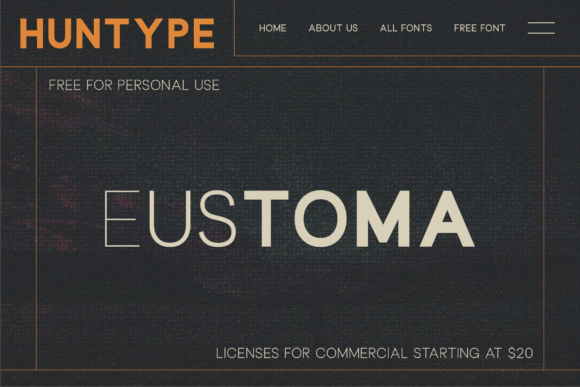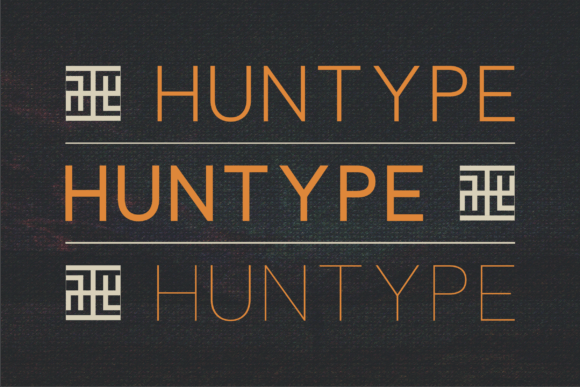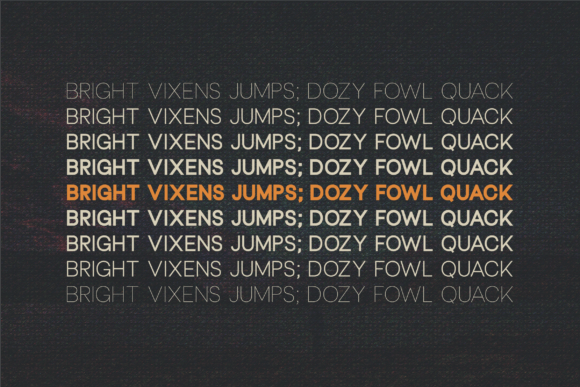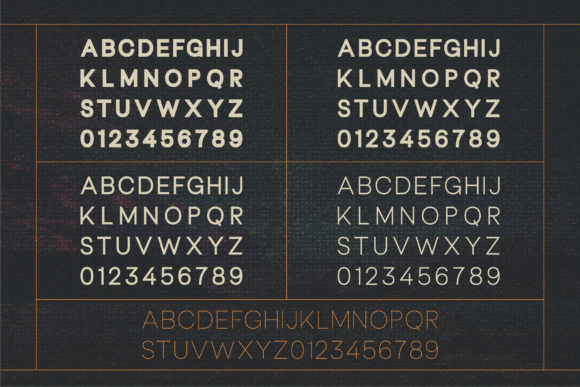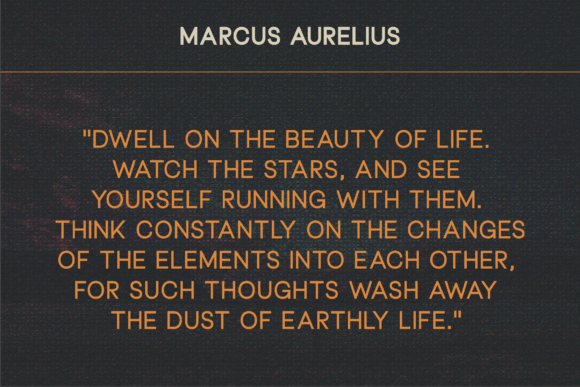
Eustoma Font: A Modern and Versatile Typeface for Designers and Crafters
In the world of typography, a font can make or break a design. With the numerous options available, finding the perfect blend of style, sophistication, and versatility can be a daunting task. However, for designers and crafters on the lookout for a modern and adaptable typeface, Eustoma Font is an excellent choice. This comprehensive font family seamlessly merges clean geometric forms with subtle sophistication, making it an ideal addition to any design project.
The Eustoma Font Family: A Harmony of Style and Versatility
Eustoma is a thoughtfully crafted font family that boasts a unique blend of sharp lines and gentle curves. This contemporary aesthetic is evident in the precise letterforms, making each font in the family a standout in its own right. The Eustoma font family consists of five distinct fonts: Thin, Light, Regular, Bold, and Black. Each font offers a varying level of impact and sophistication, catering to a wide range of design applications.
Eustoma Black: Bold and Impactful for Commanding Headlines
For designers seeking a font that makes a statement, Eustoma Black is the perfect choice. This bold and impactful font is designed to command attention, making it ideal for headlines, titles, and key messages. The sharp lines and geometric forms of Eustoma Black create a sense of confidence and authority, ensuring that your message is conveyed with clarity and conviction.
Eustoma Bold: Strong and Persuasive for Key Messages
Eustoma Bold offers a slightly more subtle approach than its Black counterpart, yet still packs a punch. This strong and persuasive font is well-suited for key messages, calls-to-action, and other design elements where you want to grab the reader’s attention. The bold lines and geometric shapes of Eustoma Bold create a sense of professionalism and expertise, making it an excellent choice for businesses and brands.
Eustoma Regular: A Balanced and Versatile Mid-Weight for Diverse Applications
For designers seeking a font that offers a balance of style and versatility, Eustoma Regular is an excellent choice. This mid-weight font is suitable for a wide range of applications, from body text and articles to captions and descriptions. The clean lines and geometric forms of Eustoma Regular create a sense of clarity and readability, making it an excellent choice for designers who want a font that can adapt to various design scenarios.
Eustoma Light: Subtle and Elegant for Refined Designs
Eustoma Light offers a more subtle approach, perfect for designers who want to add a touch of sophistication to their designs. This elegant font is well-suited for refined designs, such as luxury brands, high-end products, and editorial content. The gentle curves and clean lines of Eustoma Light create a sense of refinement and poise, making it an excellent choice for designers who want to convey a sense of elegance and style.
Eustoma Thin: Delicate and Sophisticated for a Minimalist Touch
For designers who want to add a touch of minimalism to their designs, Eustoma Thin is an excellent choice. This delicate and sophisticated font is perfect for designs where you want to convey a sense of simplicity and elegance. The thin lines and geometric forms of Eustoma Thin create a sense of airiness and refinement, making it an excellent choice for designers who want to add a touch of subtlety to their designs.
Why Choose Eustoma Font?
So, why choose Eustoma Font for your design projects? Here are a few compelling reasons:
- Versatility: Eustoma Font offers a range of styles, from Thin to Black, making it suitable for a wide range of design applications.
- Modern aesthetic: The clean geometric forms and subtle sophistication of Eustoma Font create a modern and contemporary aesthetic.
- Readability: The precise letterforms and clear lines of Eustoma Font ensure excellent readability, even at smaller font sizes.
- Elegance: The gentle curves and subtle sophistication of Eustoma Font add a touch of elegance to any design.
In conclusion, Eustoma Font is an excellent choice for designers and crafters seeking a modern and versatile typeface. With its range of styles, from Thin to Black, Eustoma Font offers a solution for a wide range of design applications. Whether you’re designing a website, brochure, or business card, Eustoma Font is sure to make a lasting impression. So, why not give Eustoma Font a try and experience the perfect blend of style, sophistication, and versatility?